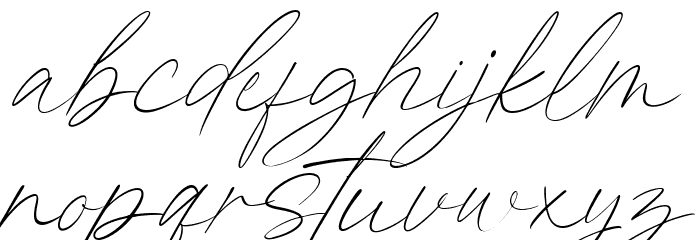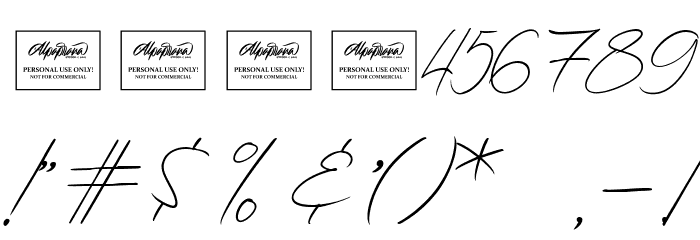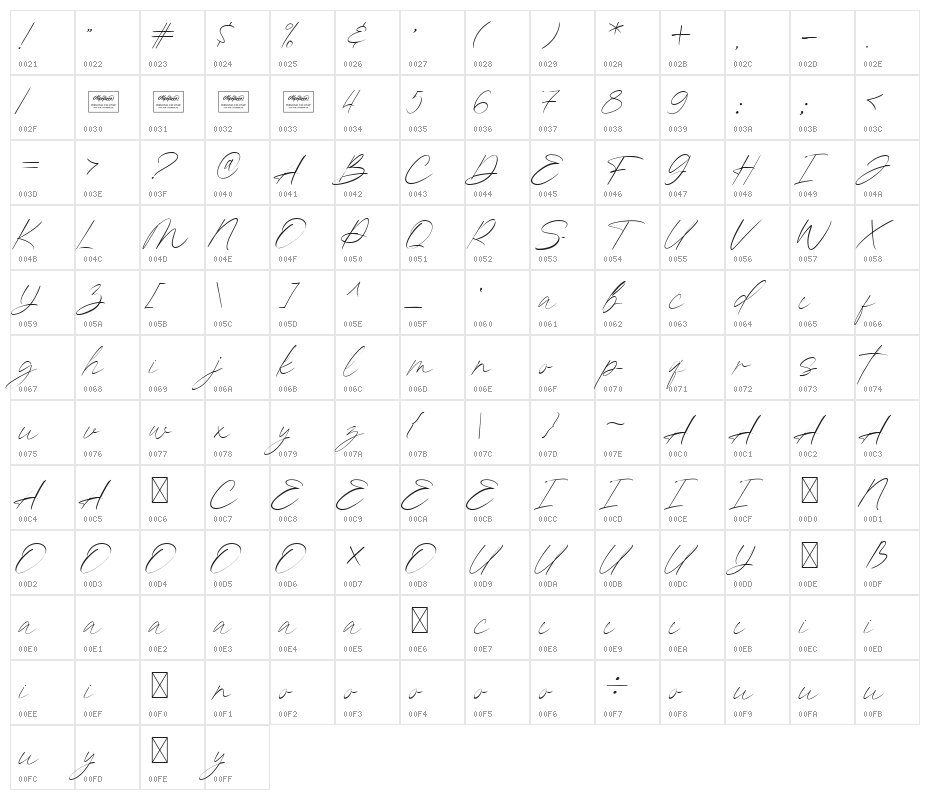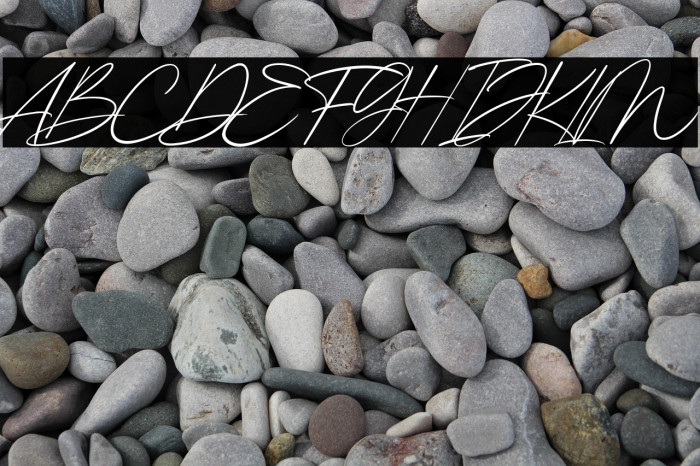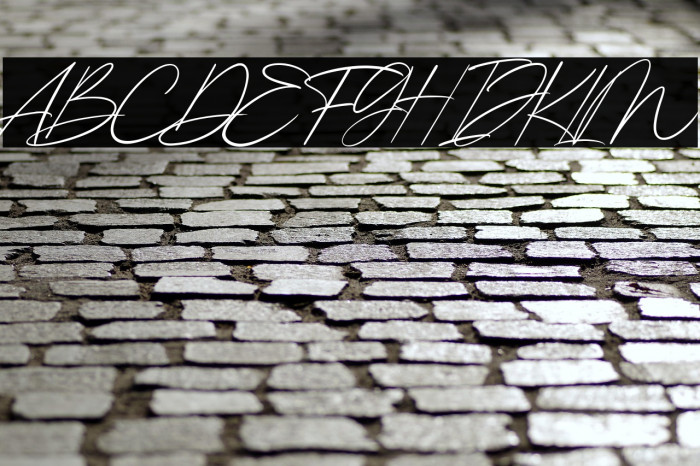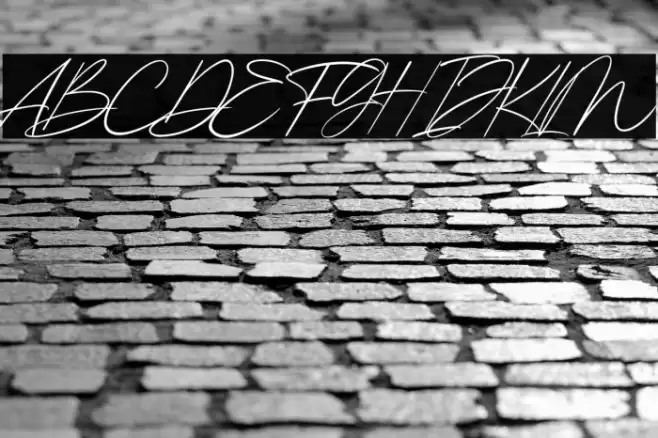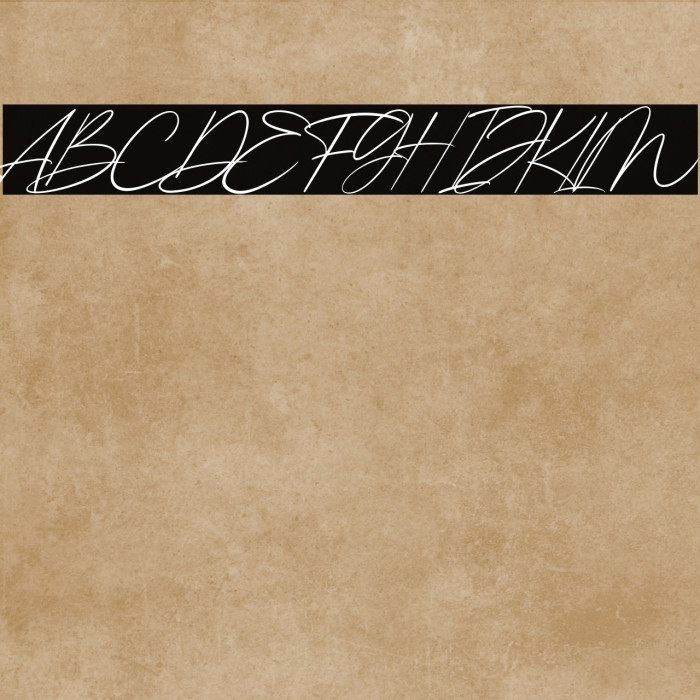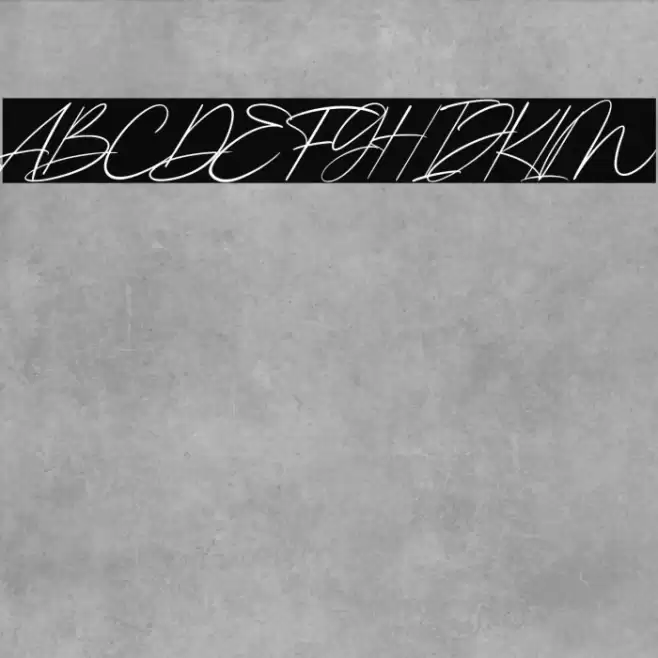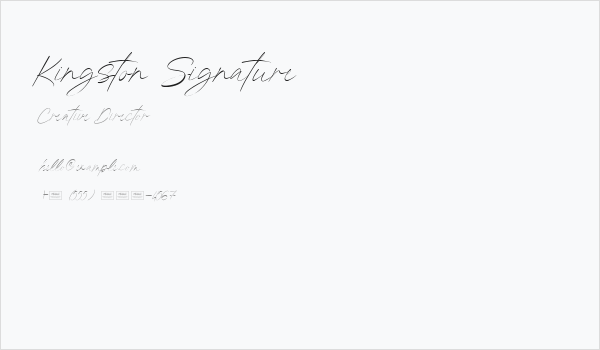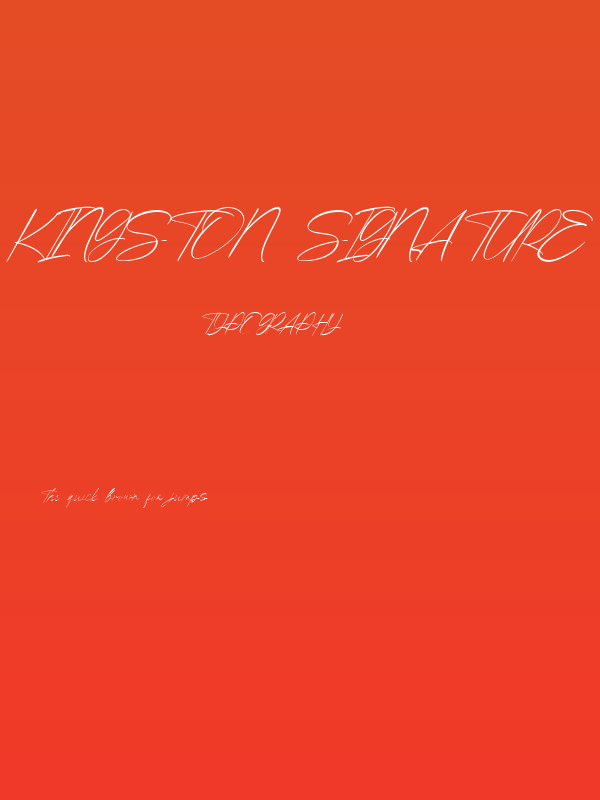
Kingston Signature Font
This elegant script font features a fluid, cursive style that mimics the natural flow of handwriting. The letters are connected, creating a seamless and sophisticated appearance. The strokes are thin and delicate, with a consistent slant that adds to its graceful look. This font exudes a personal and artistic touch, making it ideal for projects that require a handwritten aesthetic. The uppercase letters are slightly larger and more ornate, while the lowercase letters maintain a consistent and harmonious flow. The numerals and special characters are designed to match the overall style, ensuring a cohesive look across all text elements.
A fluid and elegant script font with a natural, handwritten style.
- Font: Kingston Signature
- Proposed Projects: Ideal for wedding invitations, greeting cards, personal branding, and artistic projects.
- Category: Script
- Weight: Light
- Overall Style: Elegant, Handwritten
- Use Case: Logos, Invitations, Personal Branding